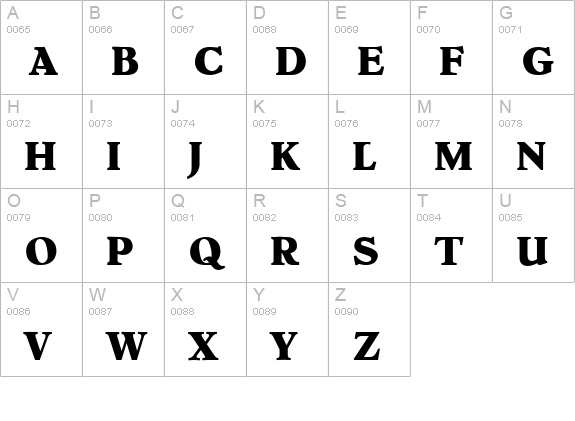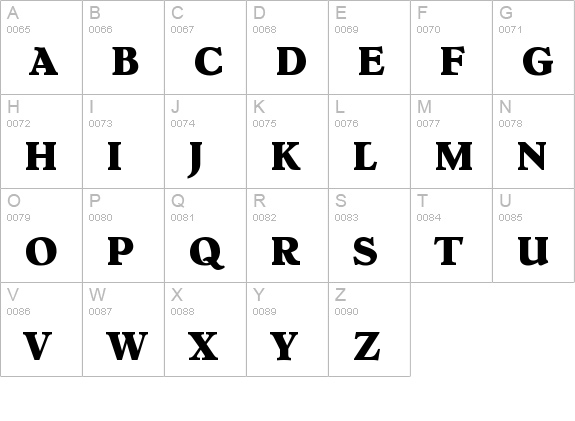
OldCentury Regular Font Details
OldCentury Regular is the standard, neutral variant in the OldCentury typeface family \xE2\x80\x94 well suited to general body text, paragraphs, and standard typographic work.
OldCentury Regular is a timeless and classic font that exudes an air of sophistication and elegance. Its graceful curves and sturdy strokes give it a distinct vintage charm, making it perfect for a wide range of design projects. Whether you're working on a poster, logo, invitation, or any other creative endeavor, OldCentury Regular is sure to add a touch of nostalgia and refinement. What's even better is that OldCentury Regular is available for free download at FontsMarket.com. This means that you can easily access this beautiful font and use it in your projects without any cost. Don't miss out on the opportunity to enhance your designs with the timeless beauty of OldCentury Regular font. Download it now and let your creativity soar!